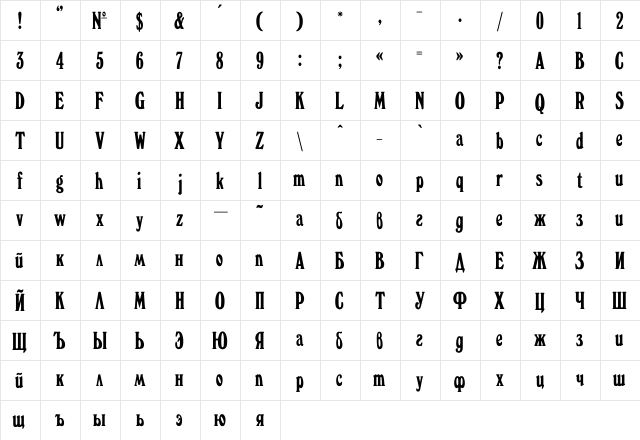
WindsorElongated_DG Regular
Design Context for WindsorElongated_DG Typeface
WindsorElongated_DG takes a measured approach to typography — its balanced proportions and neutral character make it a reliable workhorse for both digital and print work.